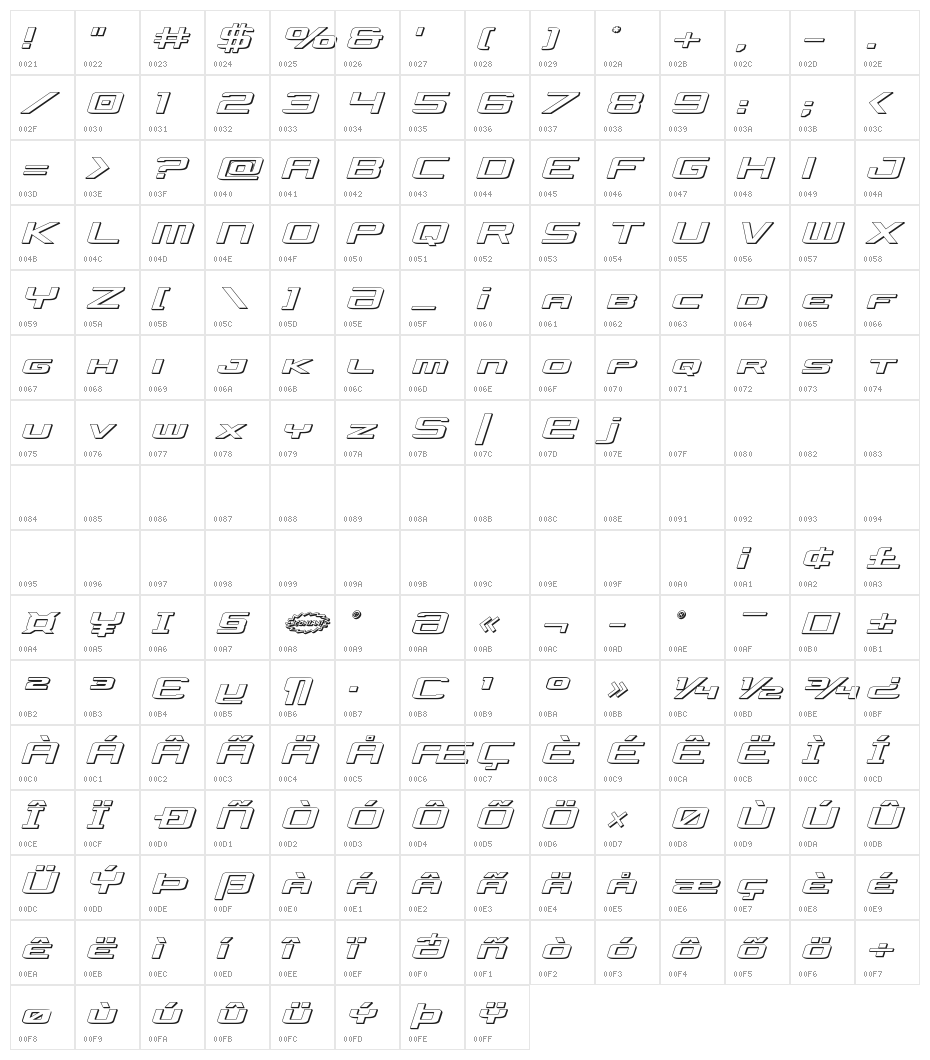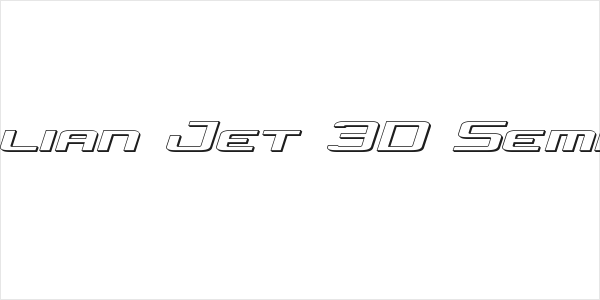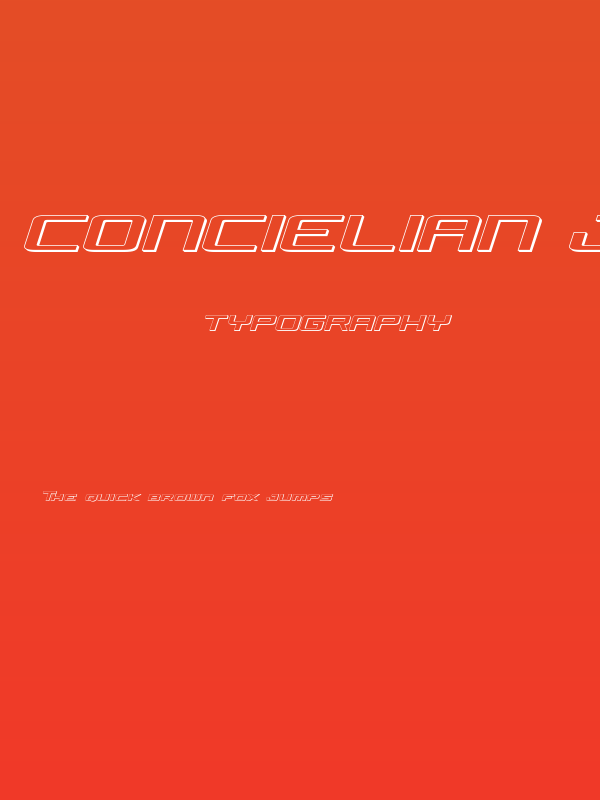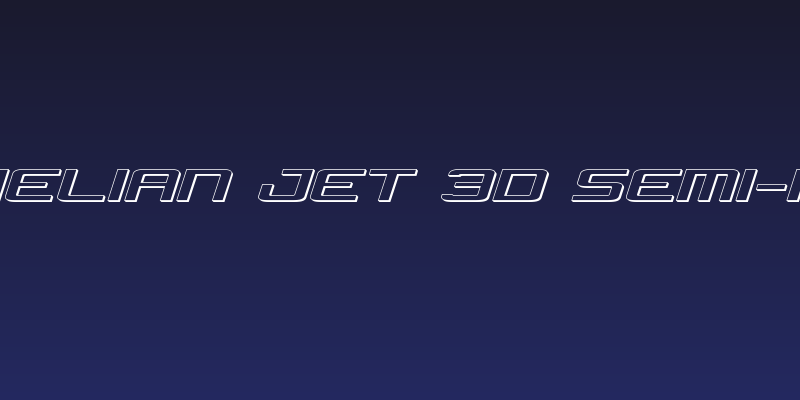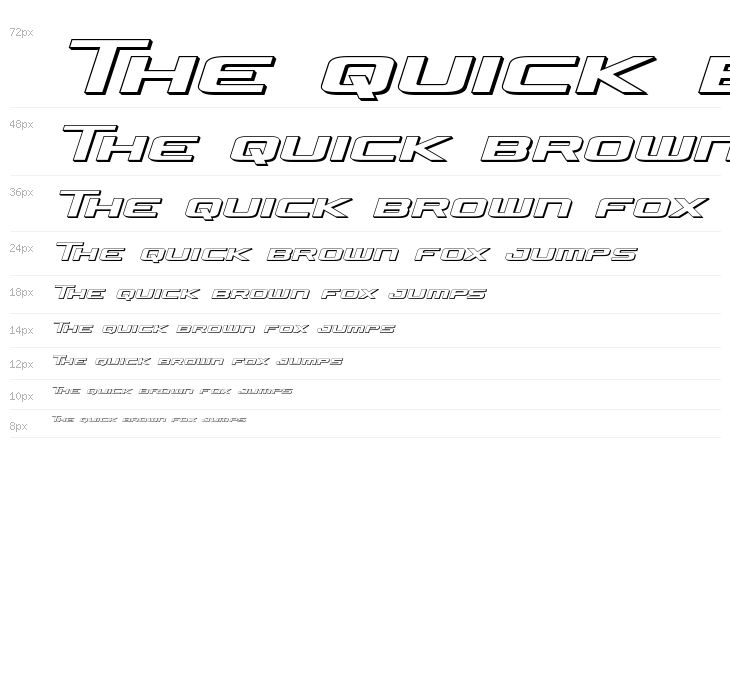
Concielian Jet 3D Semi-Italic Font
Concielian Jet 3D Semi-Italic Description
This font features a futuristic and dynamic design with a 3D effect, characterized by its semi-italic slant. The letters are outlined, giving a hollow appearance that enhances the three-dimensional look. The geometric shapes and sharp angles contribute to its modern and sleek aesthetic. The uppercase and lowercase letters maintain a consistent style, while the numerals and special characters are designed to match the overall theme. This font is ideal for projects that require a bold and eye-catching display, offering a sense of movement and energy.
| Proposed Projects | Ideal for sci-fi themed designs, video game titles, technology branding, and futuristic posters. |